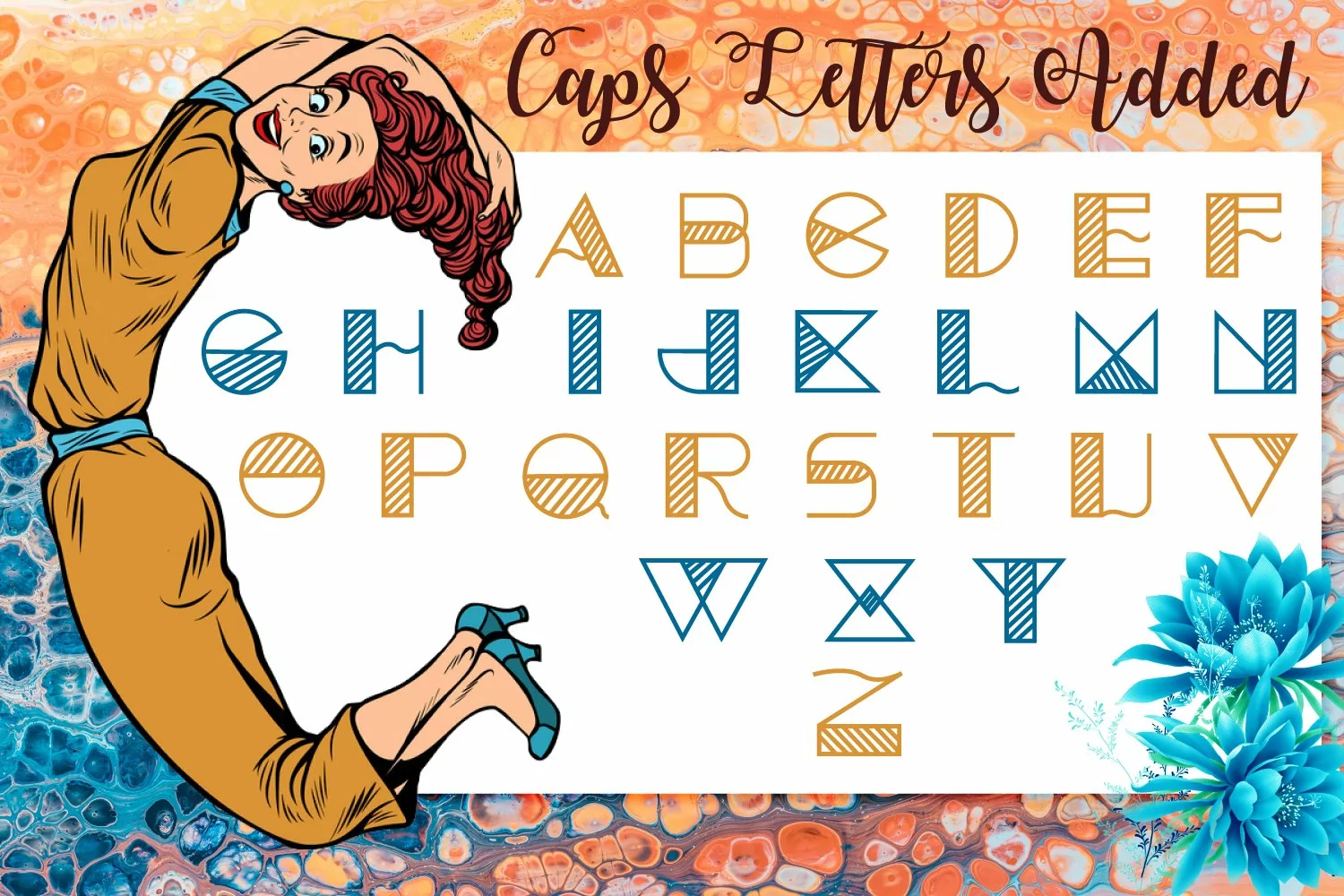
Articon - A Cute Lining Font
Font specially made for the creative designers out there! You can use these font in tons of projects ranging from retro, vintage, children books and more. It contains letters from A to Z and Uppercase version. Get this amazing font and start creating designs!
2- Creative and simple lining font.
3- Uppercase letters A-Z added.